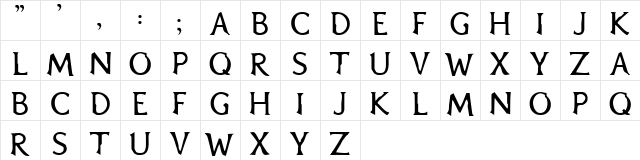
Blair Caps Regular
Design Context for Blair Caps Typeface
Blair Caps offers clean, dependable letterforms without strong stylistic allegiance, making it a practical choice for designers who need flexibility.
Pro Tip: Use Blair Caps in both headline and body roles to test its range before committing to a single application.